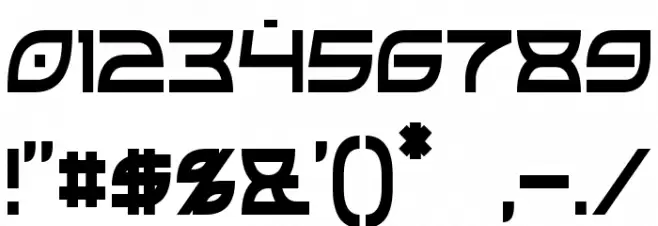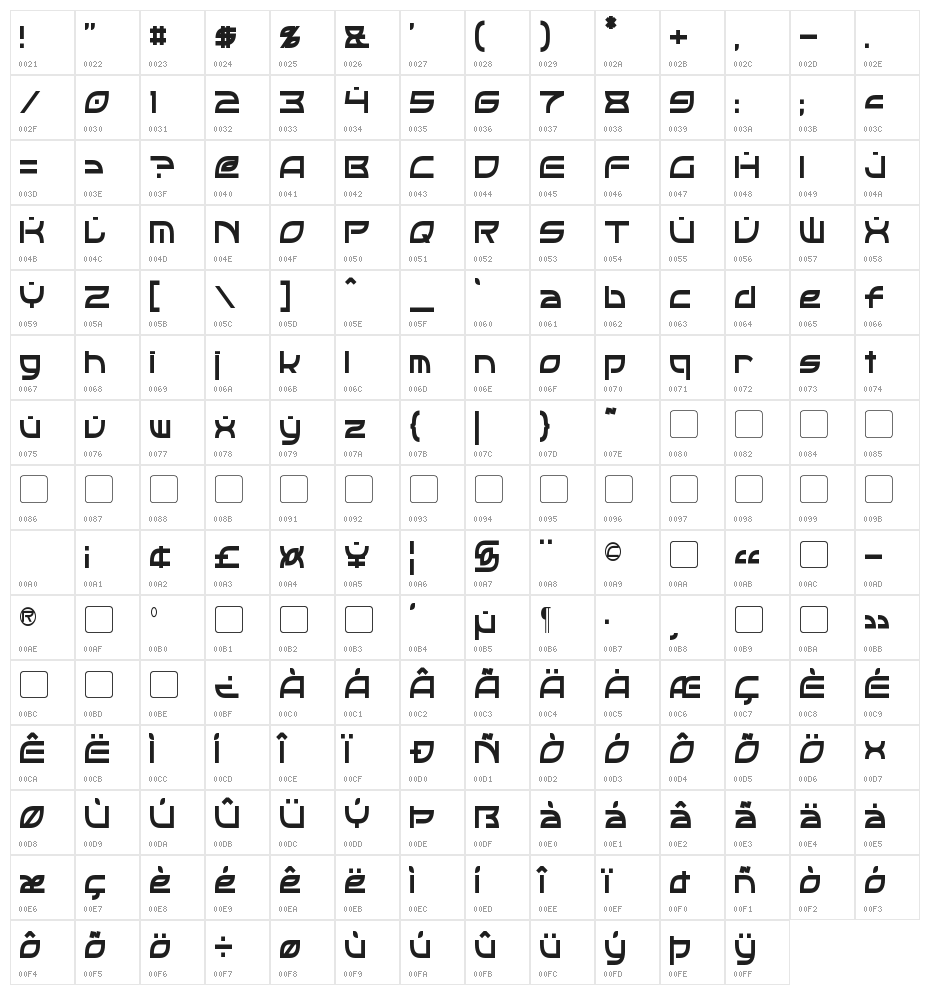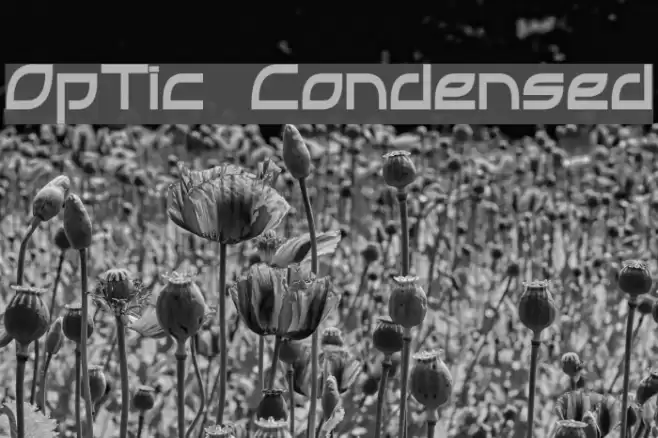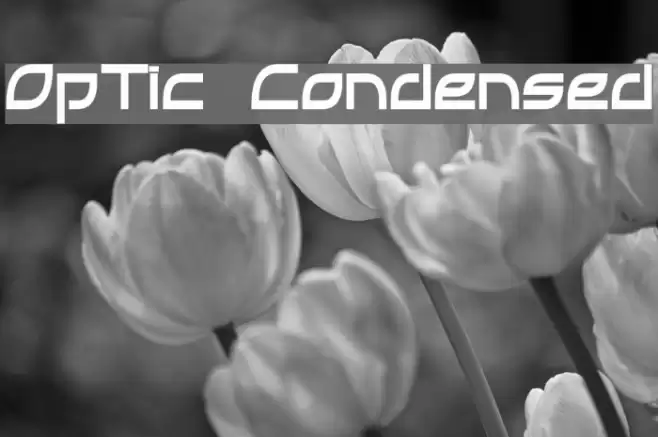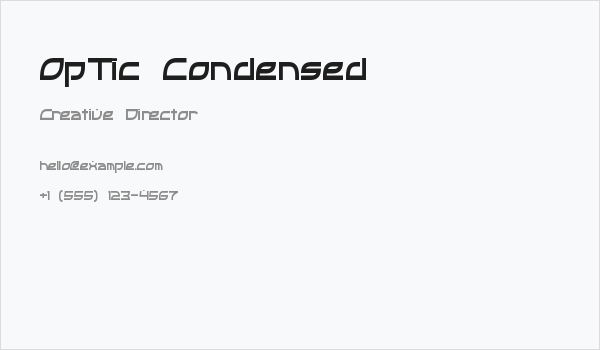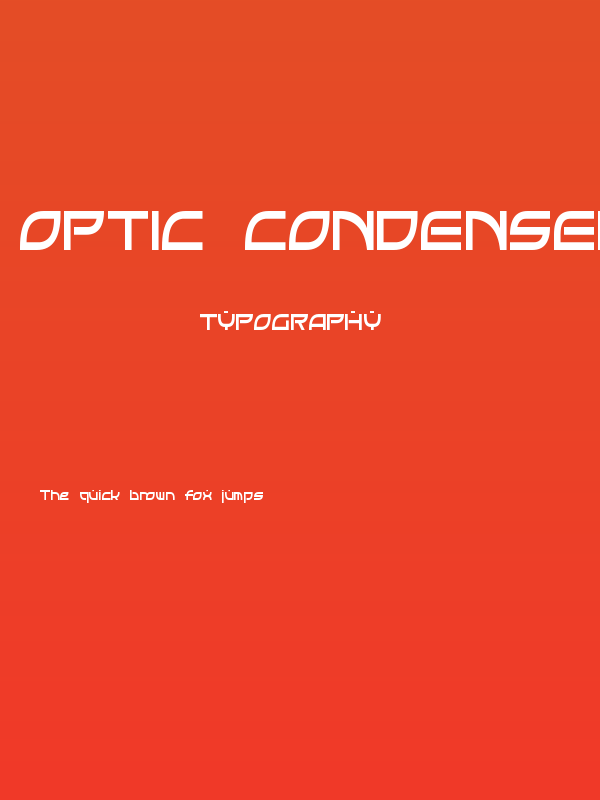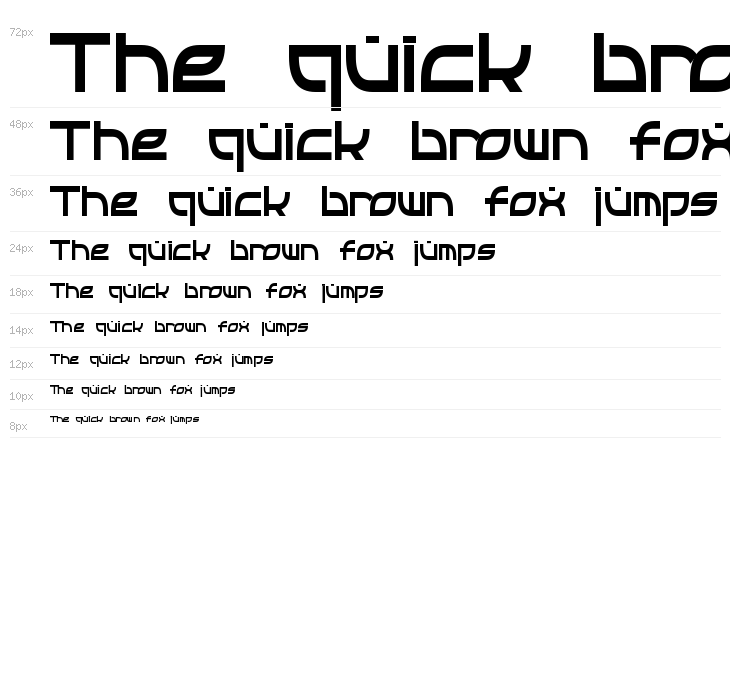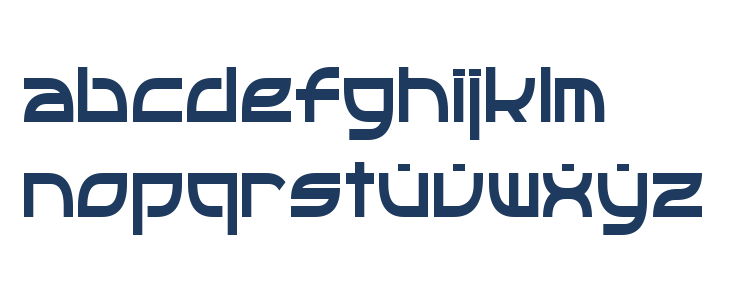
OpTic Condensed Font
OpTic Condensed Description
This font features a futuristic and geometric design, characterized by its condensed letterforms and unique angular cuts. The uppercase and lowercase letters maintain a consistent height, creating a uniform appearance. The numerals and special characters follow the same design principles, ensuring cohesion across all elements. The font's style is bold and impactful, making it suitable for attention-grabbing designs. Its modern aesthetic is enhanced by the sharp angles and clean lines, which contribute to its distinct and recognizable appearance.
| Proposed Projects | Ideal for sci-fi themed projects, technology branding, video game titles, and modern advertising. |